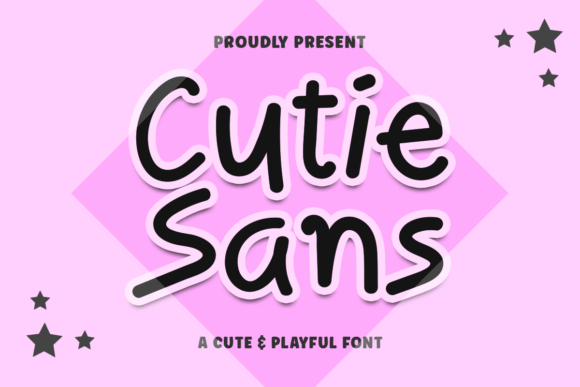
Add a Personal Touch to Your Designs with Cutie Sans Font
Do you remember the feeling of receiving a handwritten note from a loved one? The way the pen glided across the paper, leaving a trail of personality and emotion? That’s the magic of handwritten communication, and it’s exactly what Cutie Sans Font captures in its charming, unique design.
With its natural flow and delicate strokes, Cutie Sans Font is perfect for adding a personal touch to your designs. Whether you’re creating invitations, logos, social media graphics, or heartfelt projects, this typeface brings authenticity and creativity to your work. Its playful curves and whimsical feel make every word feel truly special.
As a designer, you know the importance of standing out from the crowd. Cutie Sans Font is a valuable addition to any creative’s toolkit, allowing you to infuse your designs with a touch of warmth and personality that sets them apart from the rest.
Cutie Sans Font Key Features
- Font Style: Cutie Sans is a sans-serif font with a playful and cute appearance, suitable for various applications such as logos, headings, and body text.
- Language Support: Cutie Sans includes a wide range of language support, including Latin, Cyrillic, and Greek alphabets, making it suitable for multilingual designs.
- Unique Characteristics: Features a distinctive rounded design with subtle curves, giving it a friendly and approachable feel, perfect for applications targeting a younger audience.
Review: Cutie Sans Font
Overall, I’m a bit torn about this font. Let’s start with the positives: ✨ The cuteness level is high, which is perfect for designs that require a playful touch. ✨ The font is highly customizable, with a wide range of weights and styles to choose from. ✨ It also includes a full character set, making it suitable for any language or project.
However, there are some limitations: ⚠️ The font is not ideal for body text, as it can be difficult to read in smaller sizes. ⚠️ The design can be a bit too childish for more serious or professional projects. ⚠️ Additionally, some characters may not render properly on certain devices or in certain contexts.
In terms of overall impression, I would say that Cutie Sans Font is a solid choice for projects that require a playful, whimsical touch. While it may not be the best fit for every project, it’s definitely worth considering for designs that need a little extra personality. Just be sure to test it thoroughly and use it in moderation.
- Full character set
- Wide range of weights and styles
- Playful, whimsical design
Cutie Sans Font is ideal for creating playful, youthful designs, such as children’s books, party invitations, and social media graphics.
Alternatives to Cutie Sans Font